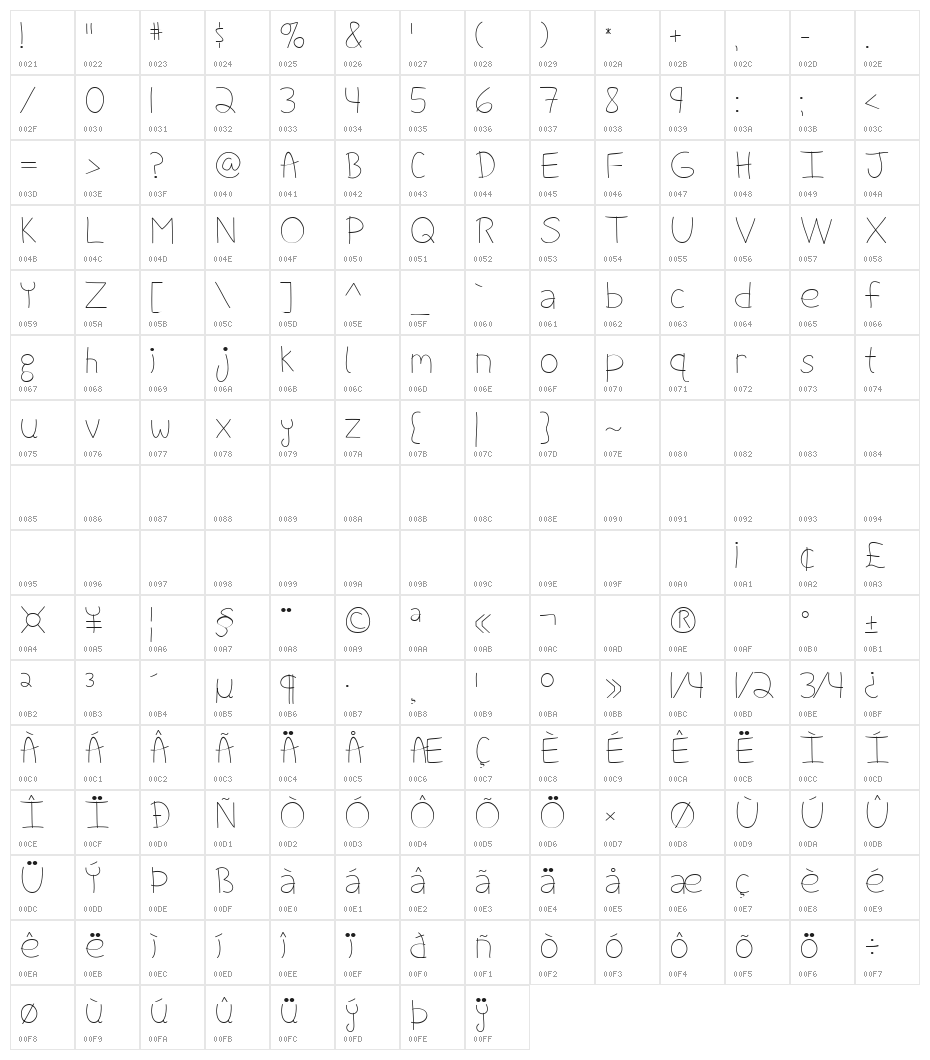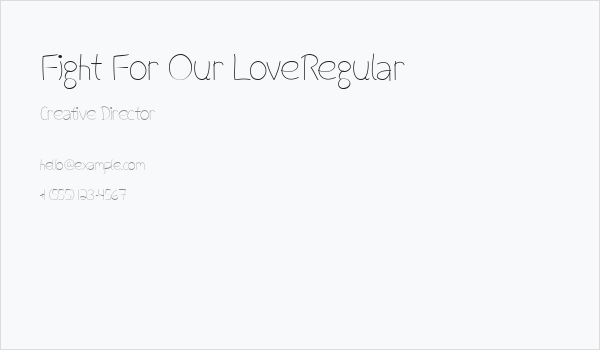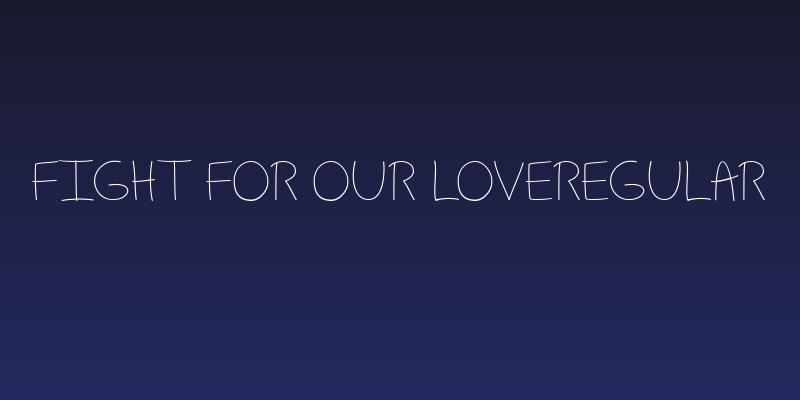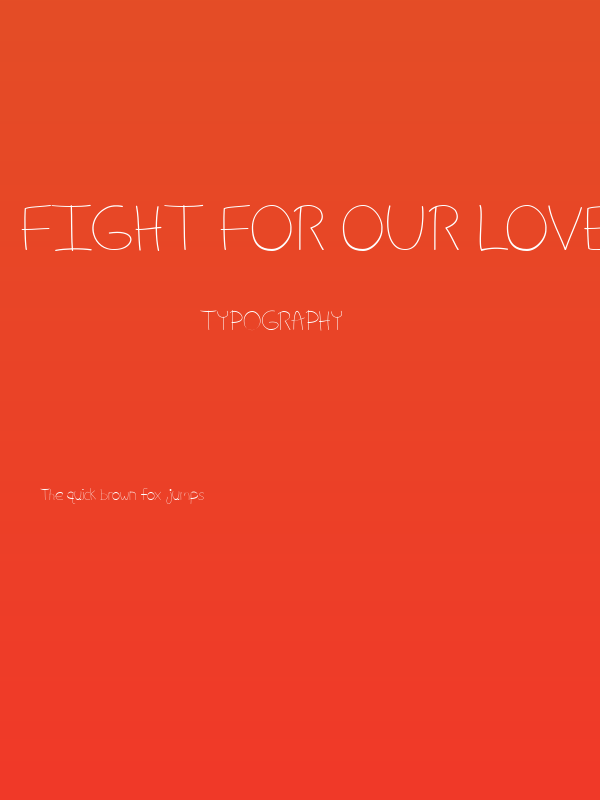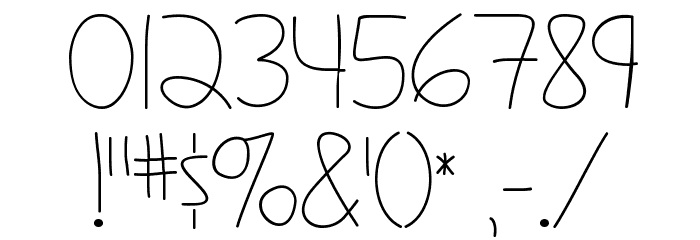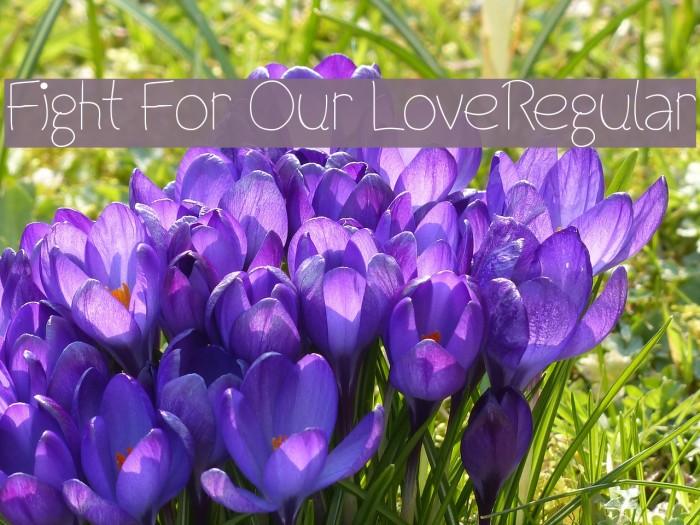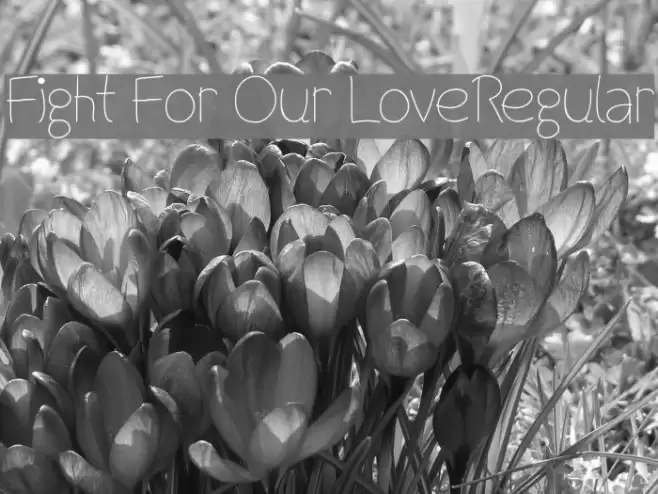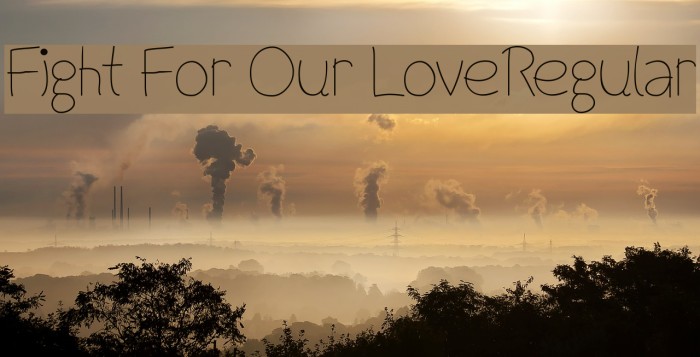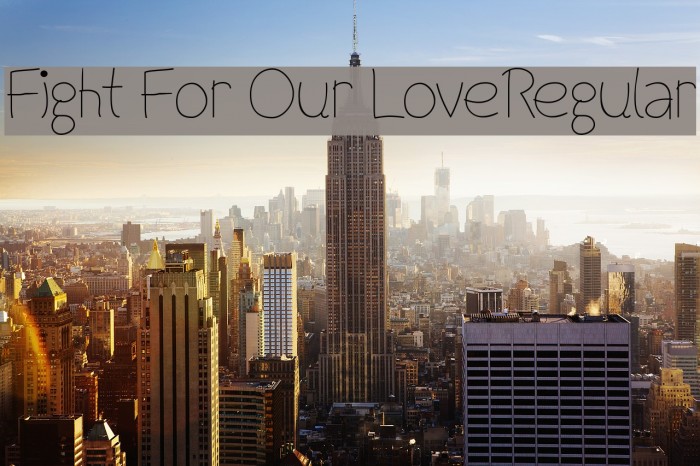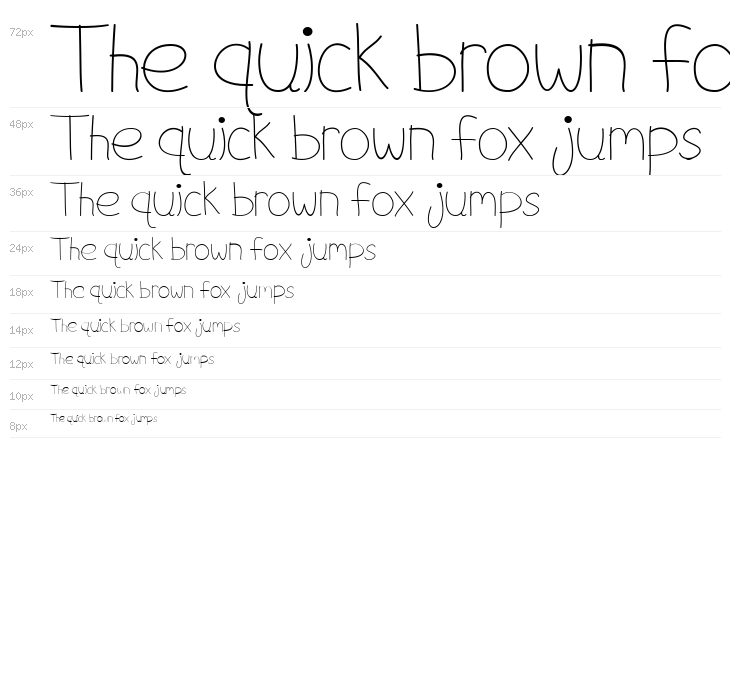
Fight For Our LoveRegular Font
Fight For Our LoveRegular Description
This font features a playful and whimsical style with a handwritten appearance. The characters are thin and elongated, giving a light and airy feel. The strokes are consistent in width, providing a uniform look across all letters and numbers. The uppercase letters are slightly taller than the lowercase, maintaining a balanced proportion. The font includes a full set of numerals and a variety of special characters, enhancing its versatility. Its casual and friendly design makes it suitable for informal and creative projects.
| Overall Style | Casual |
| Use Case | Headlines, Logos, Informal Text |
| Proposed Projects | Ideal for greeting cards, children's books, casual invitations, and playful branding. |